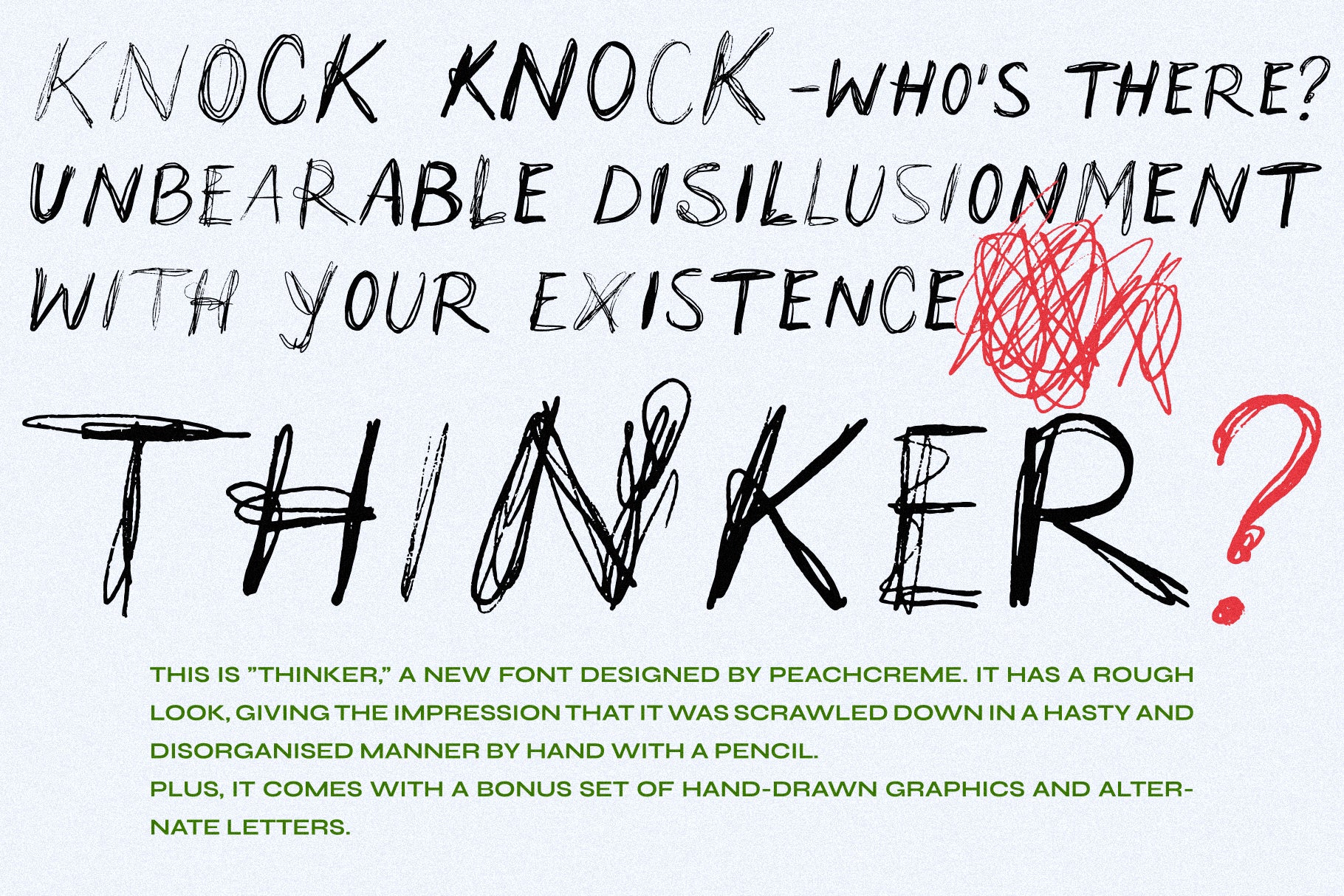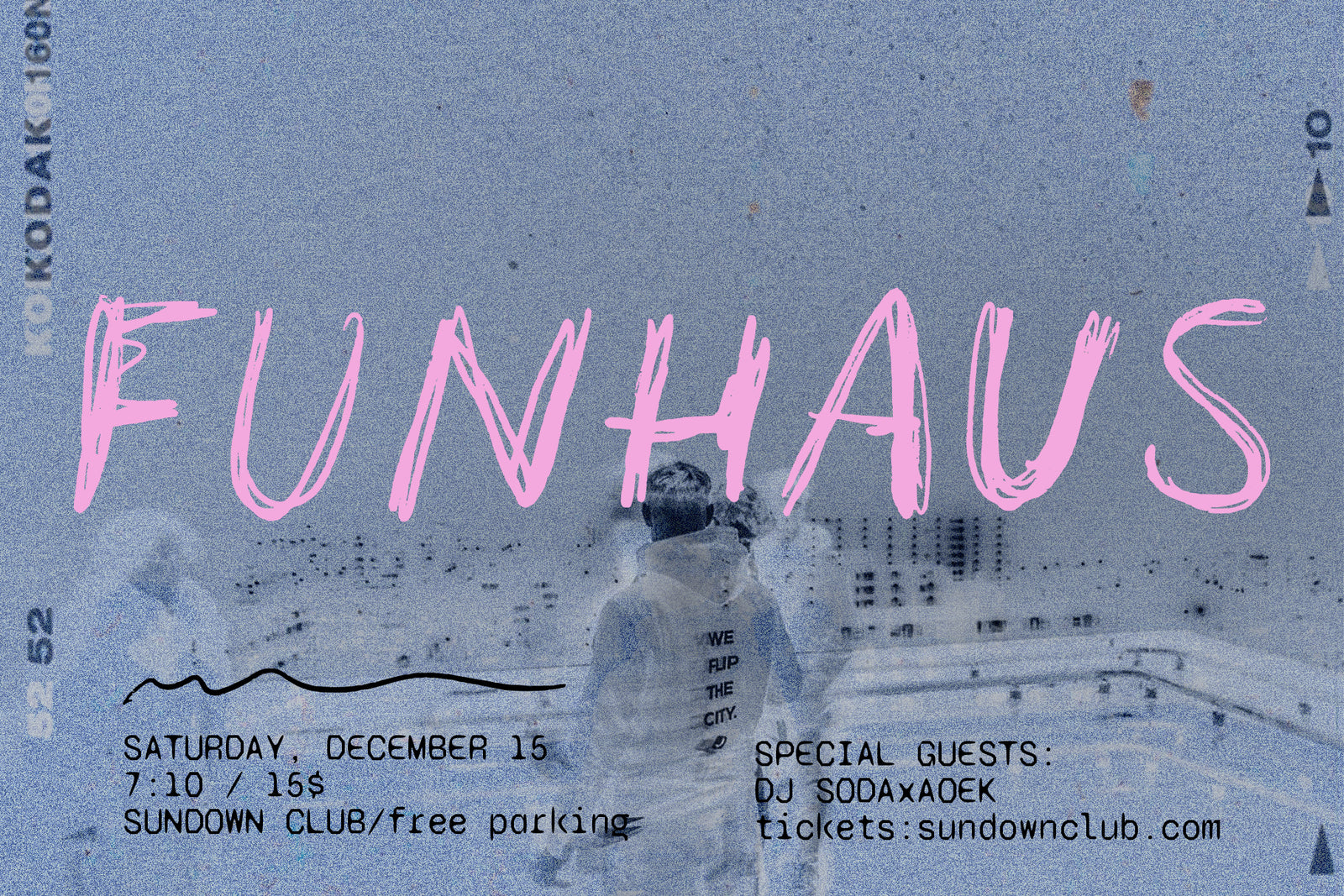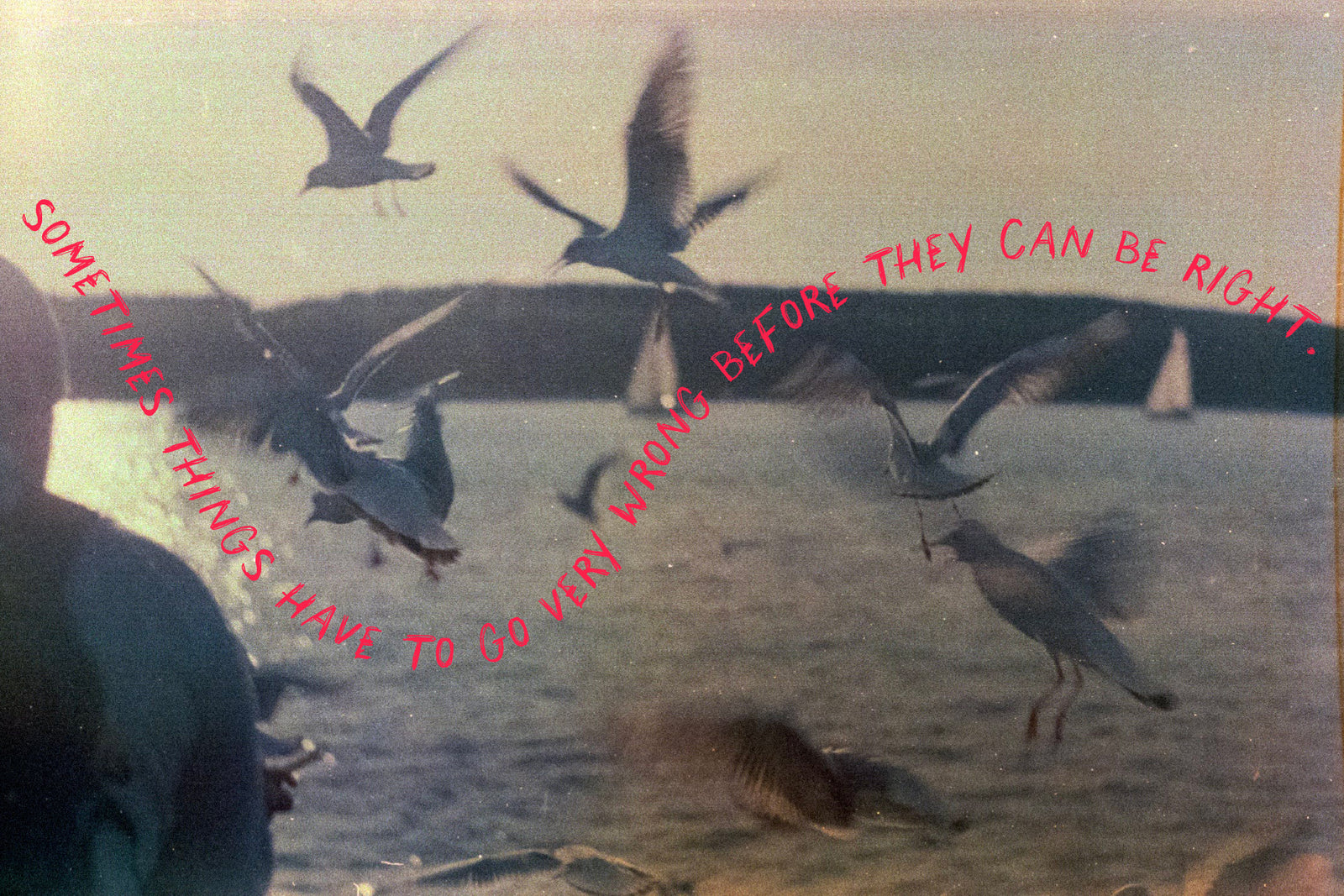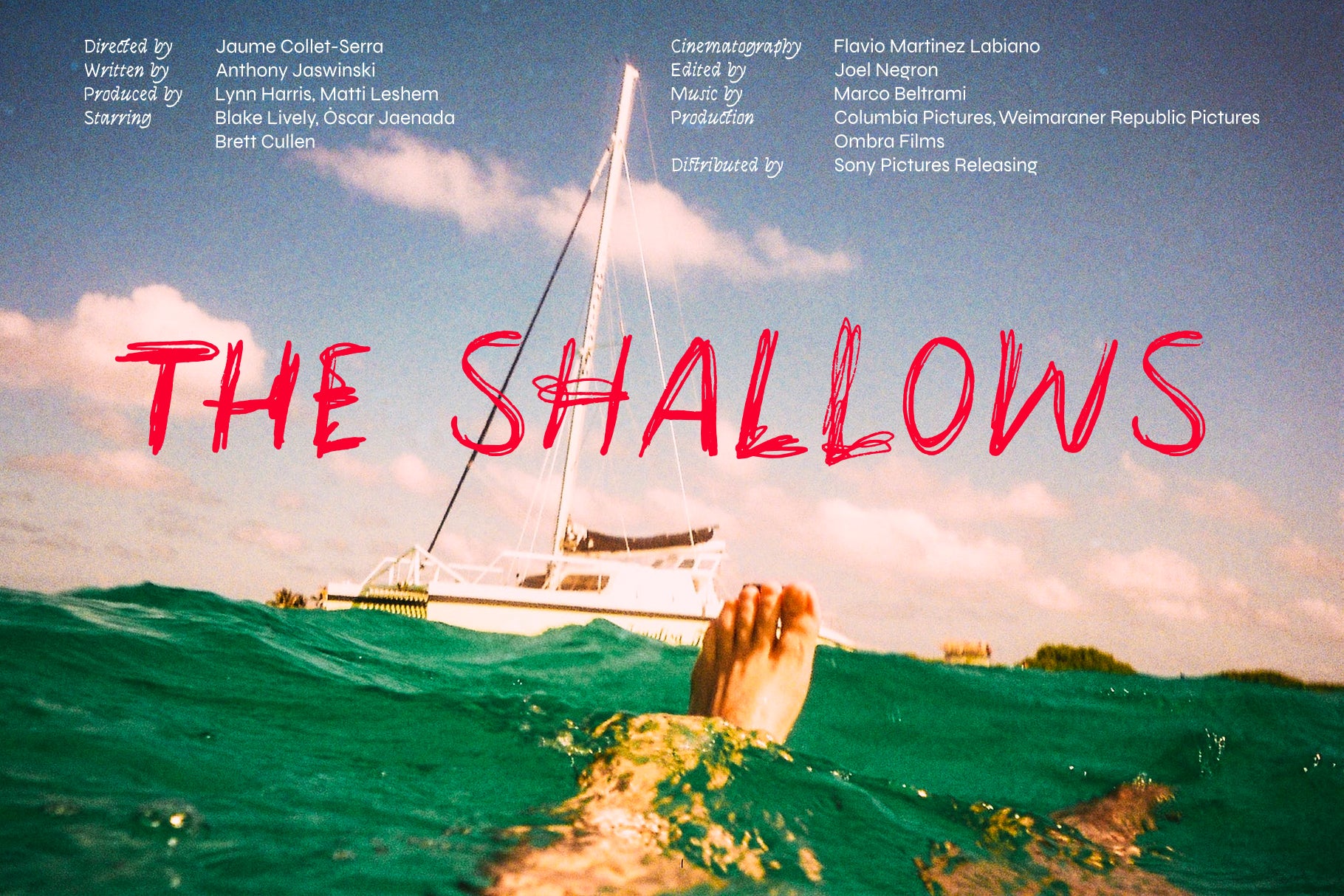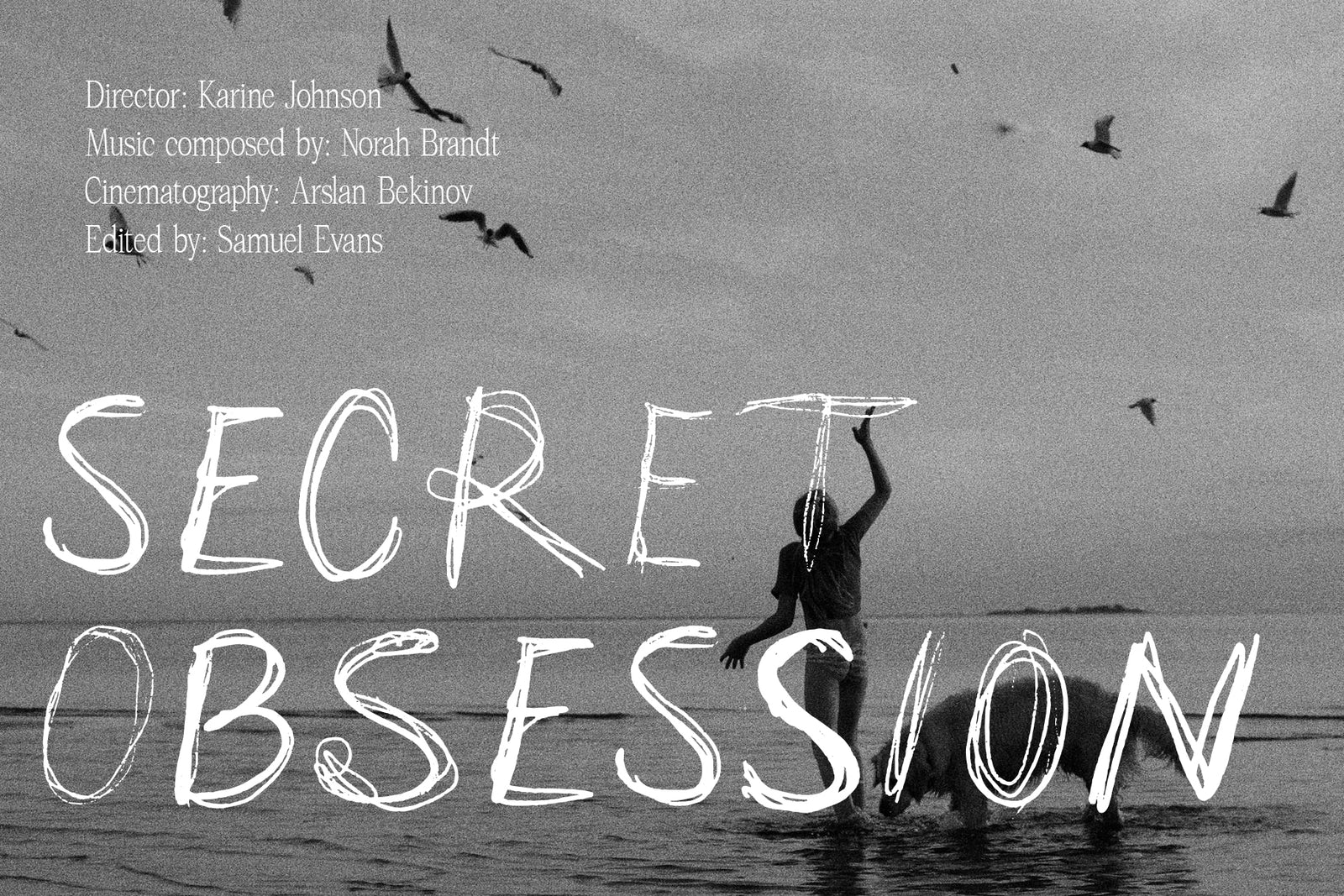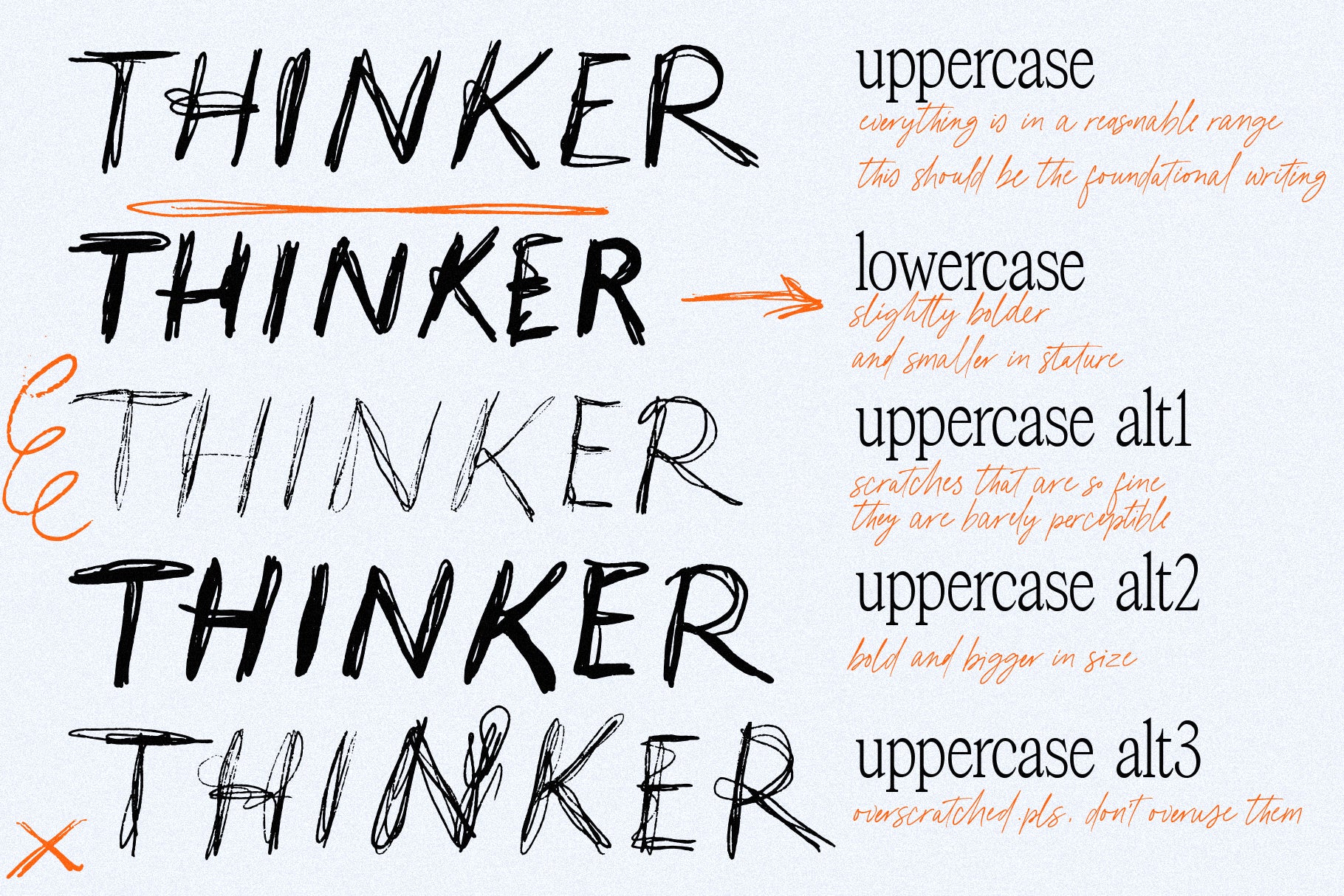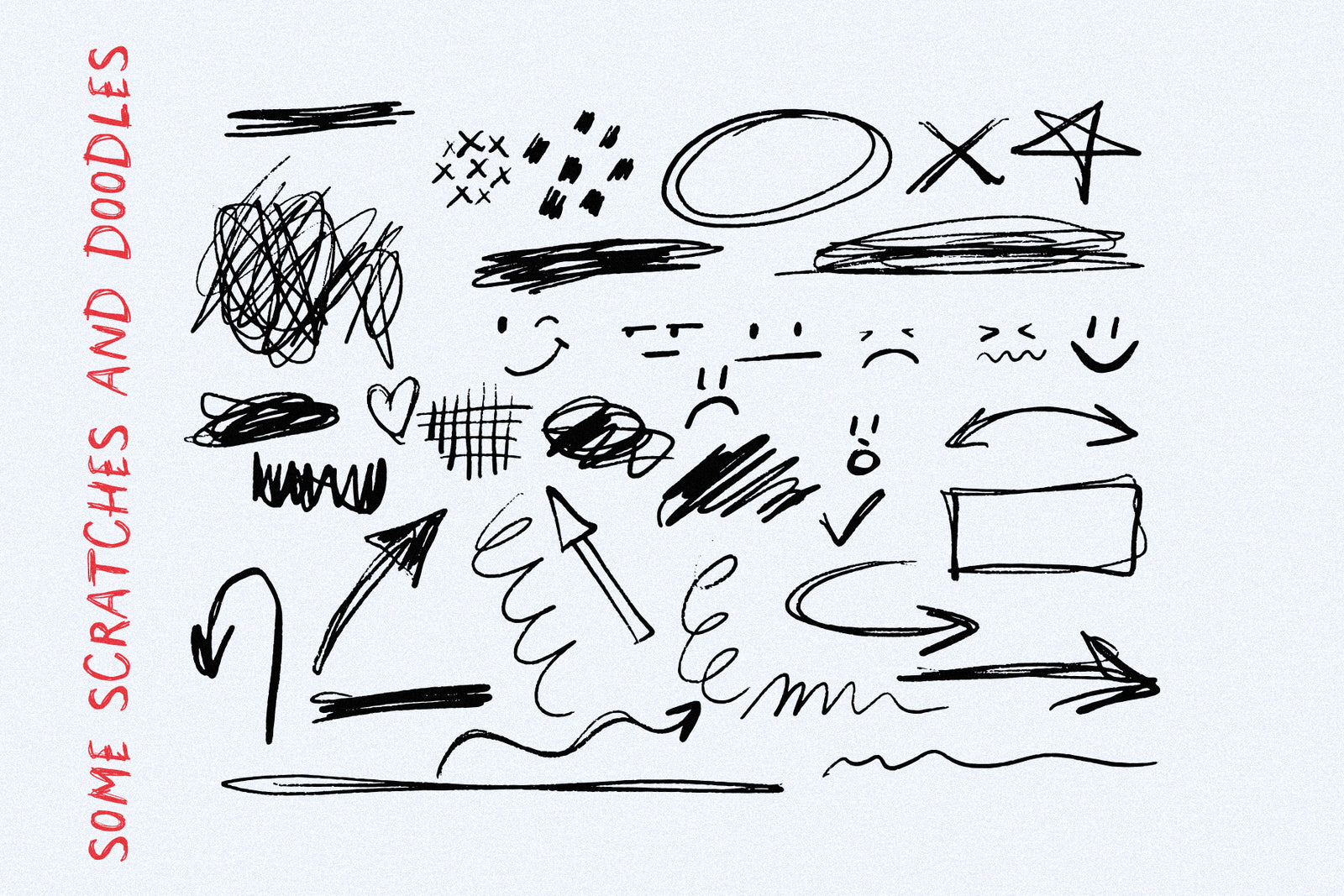
This is "Thinker," a new font designed by Peachcreme. It has a rough look, giving the impression that it was scrawled down in a hasty and disorganised manner by hand with a pencil. Plus, it comes with a bonus set of hand-drawn graphics and alternate letters.